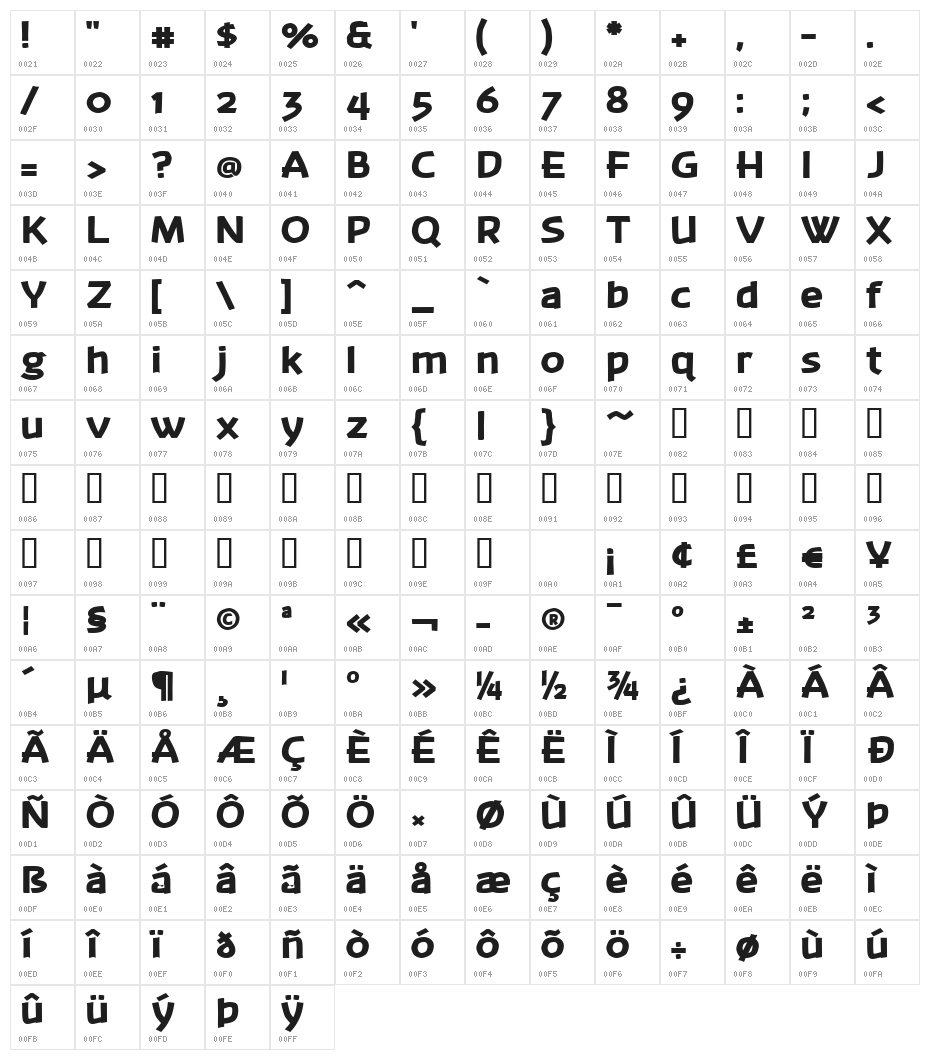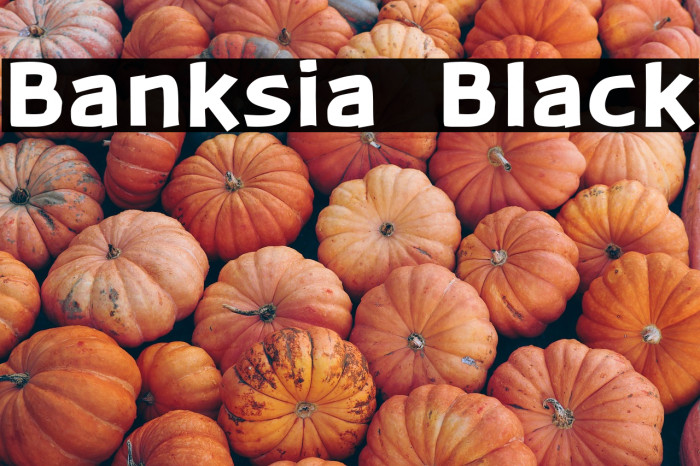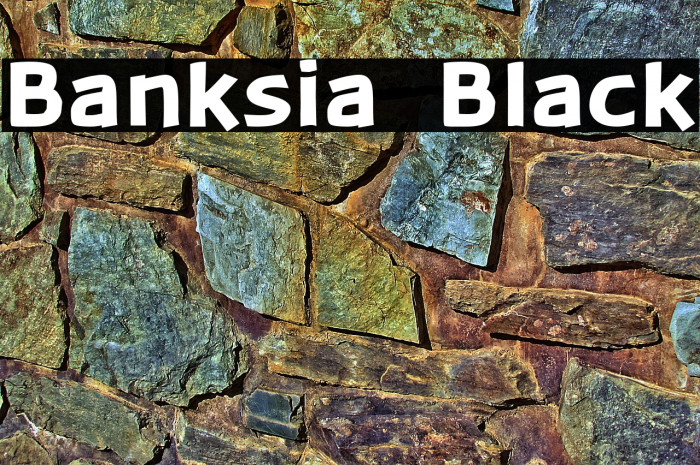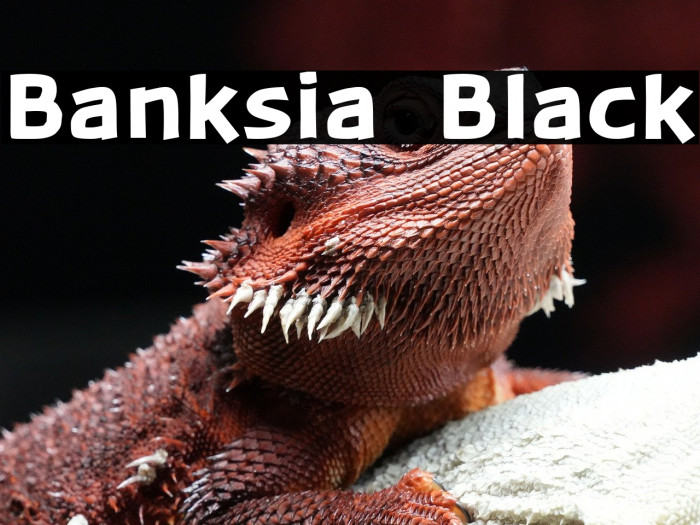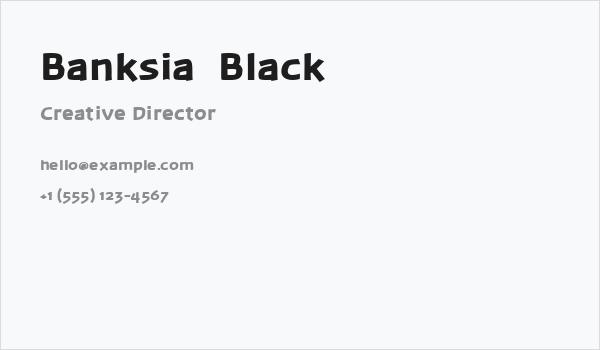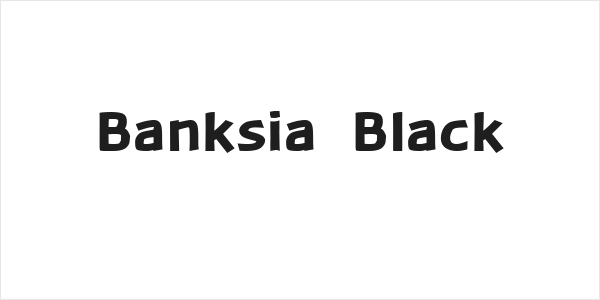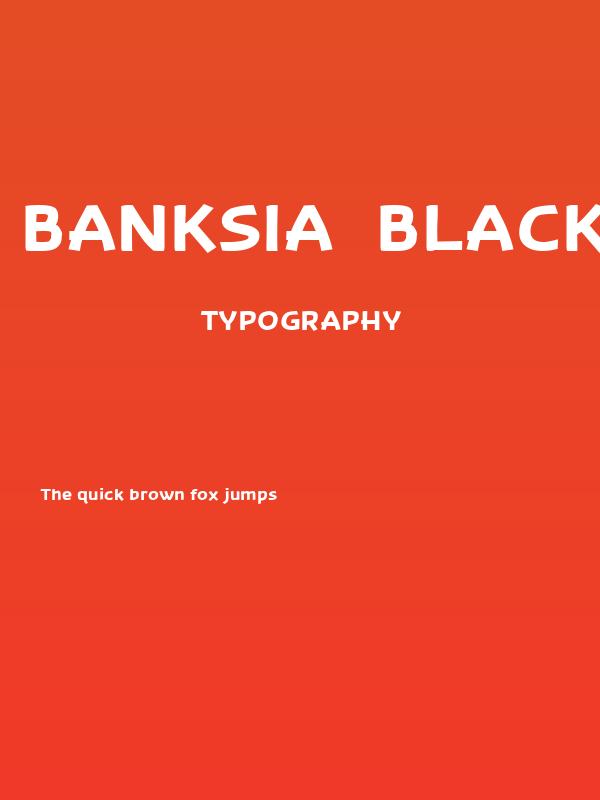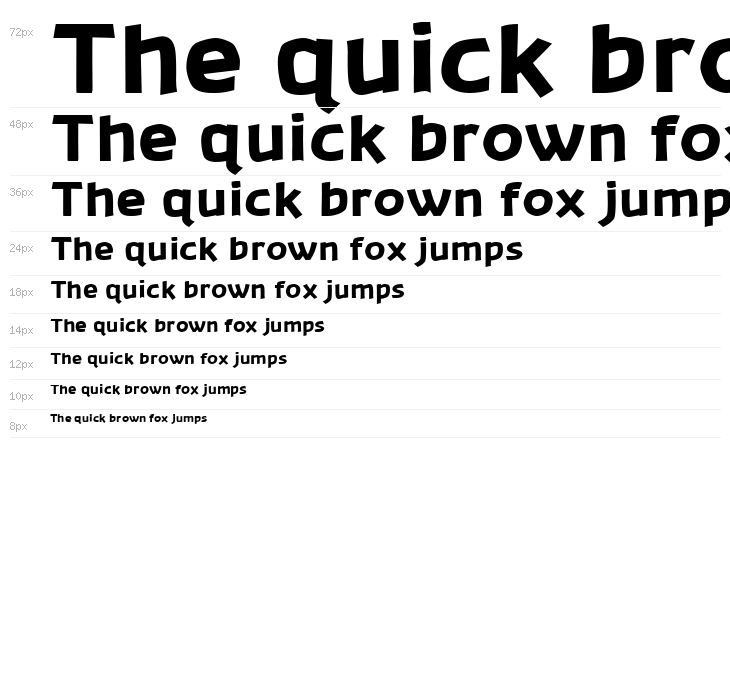
Banksia Black Font
Banksia Black Description
This font features a bold and dynamic style with a slightly irregular and playful appearance. The characters have a strong presence, with thick strokes and a slight slant that adds a sense of movement. The uppercase letters are robust and commanding, while the lowercase letters maintain a consistent weight, offering a harmonious balance. The numerals are clear and legible, matching the boldness of the alphabet. Special characters are designed with the same attention to detail, ensuring they integrate seamlessly with the rest of the font. This font's unique style makes it stand out, offering a modern yet approachable feel.
| Proposed Projects | Ideal for branding, posters, headlines, and any project requiring a strong visual impact. |